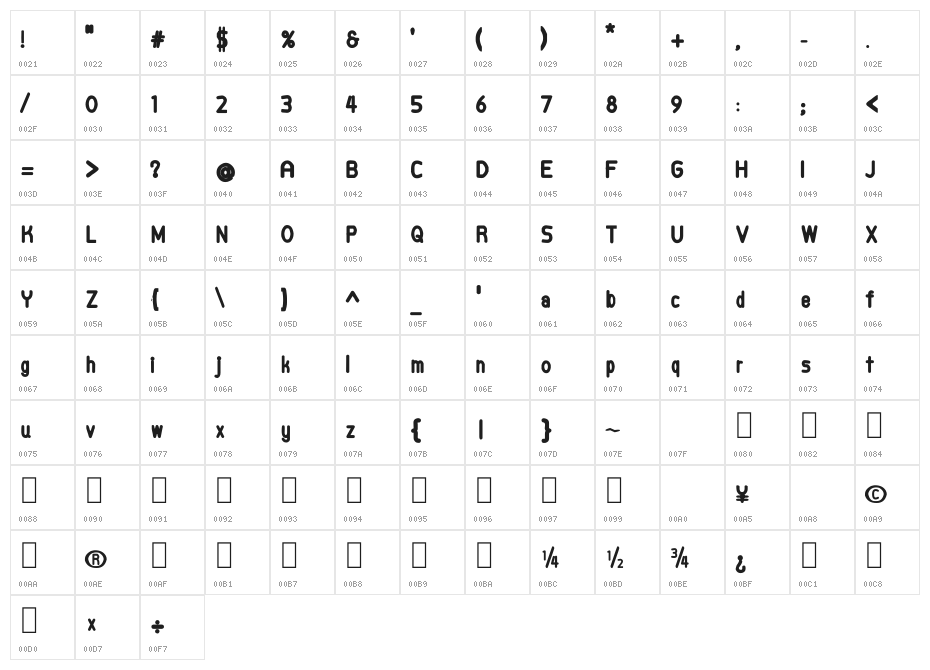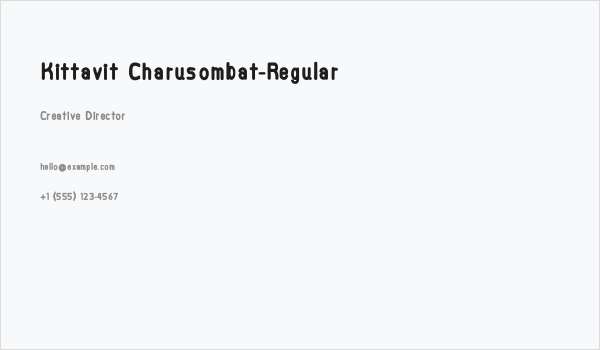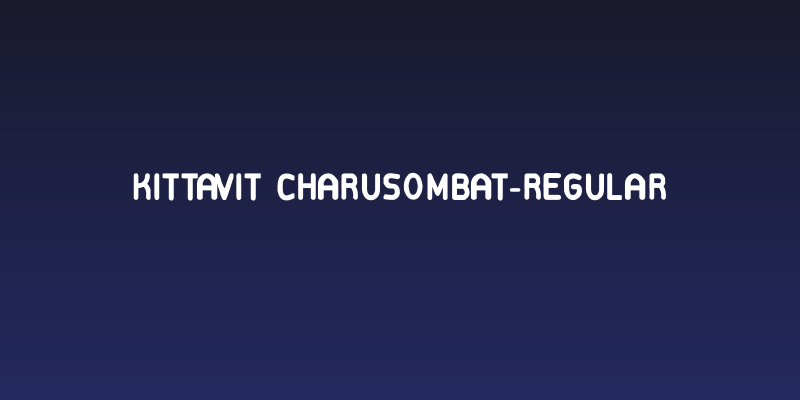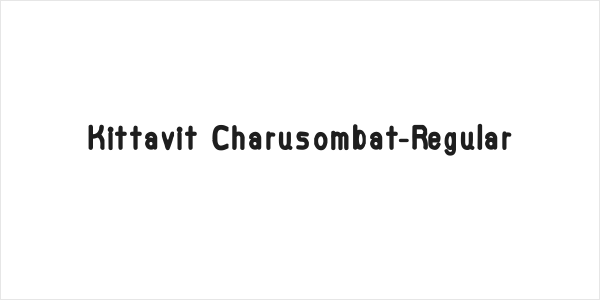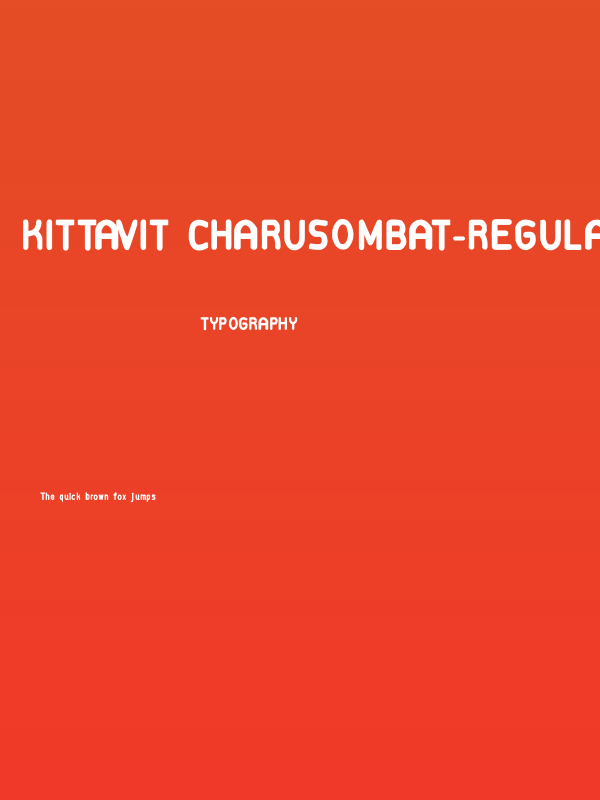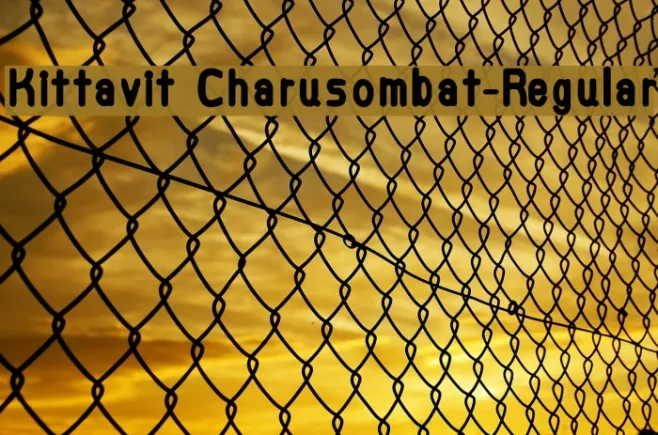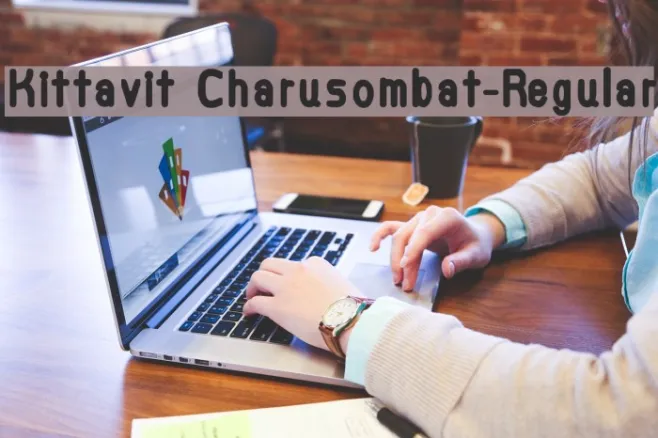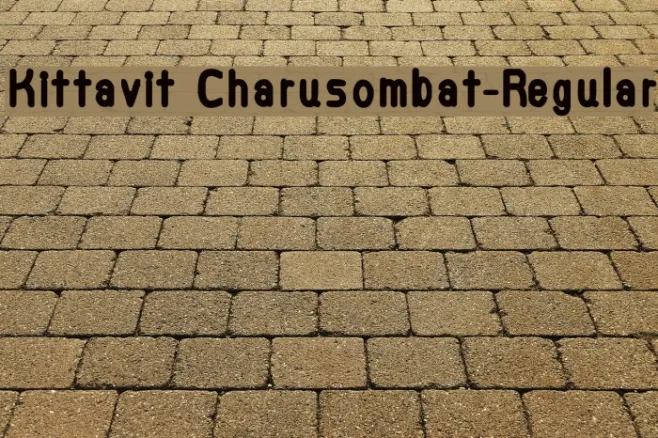
Kittavit Charusombat-Regular Font
Kittavit Charusombat-Regular Description
This font features a playful and rounded design, characterized by its bold and friendly appearance. The letters are evenly spaced with a consistent stroke width, giving it a uniform and approachable look. The rounded edges and smooth curves contribute to its casual and informal style, making it suitable for a variety of creative projects. The numerals and special characters maintain the same playful aesthetic, ensuring consistency across all text elements.
| Proposed Projects | Ideal for children's books, playful branding, casual invitations, and creative posters. |